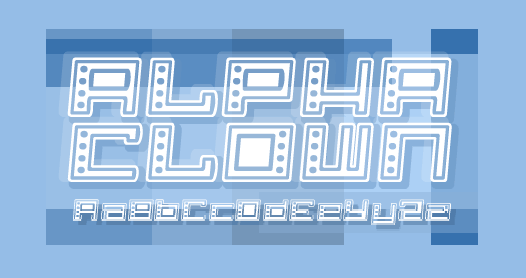
Alpha Clown
The final remix of that oh-so-ordinary font AlphaStep. If I had to use one word to describe this font it would be a big, five dollar word like "jubliant". Either that, or "roundie".